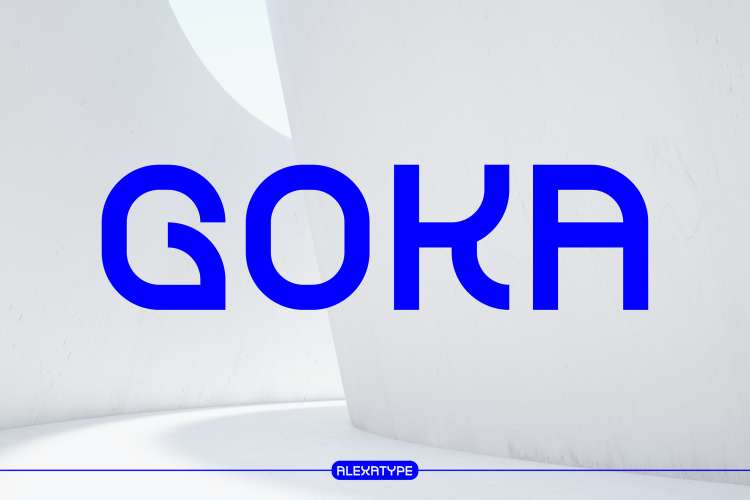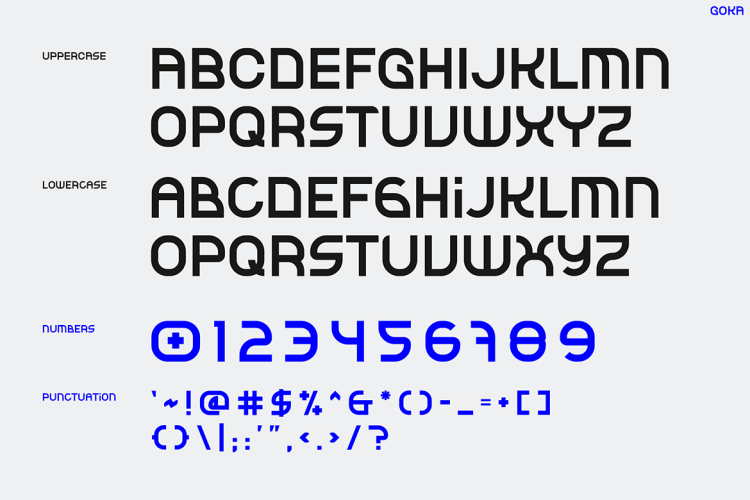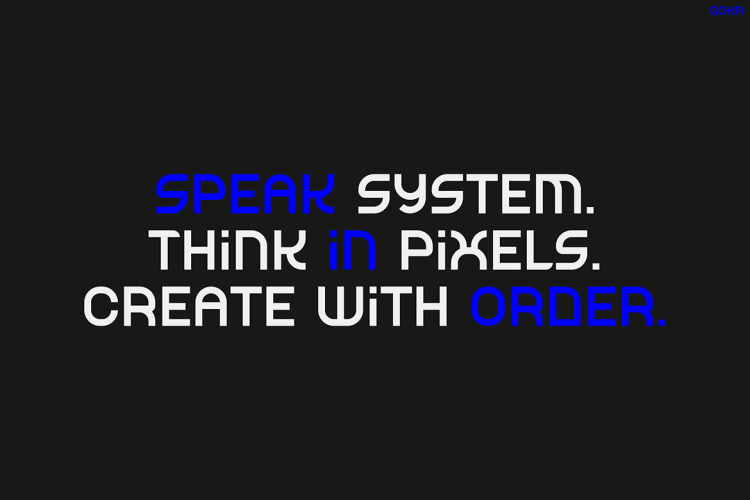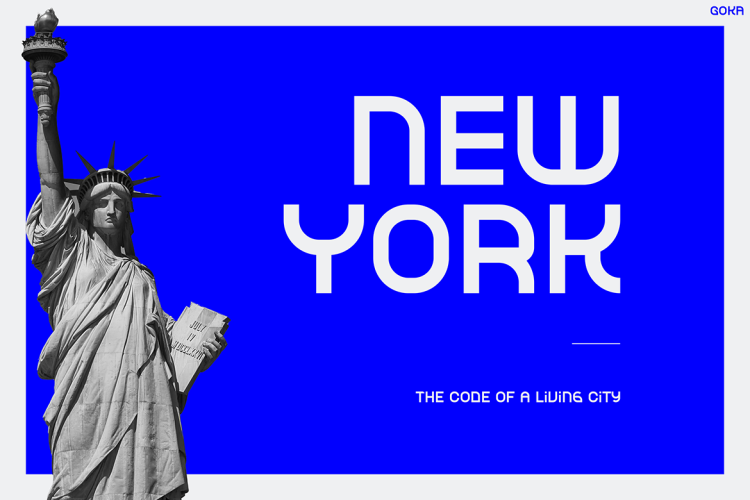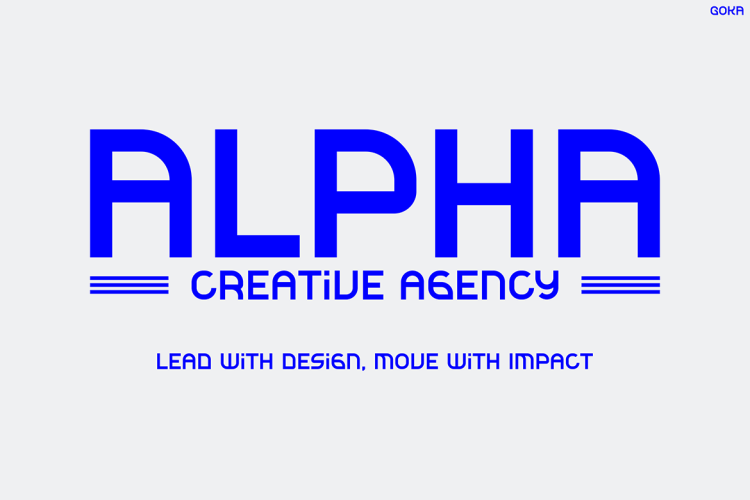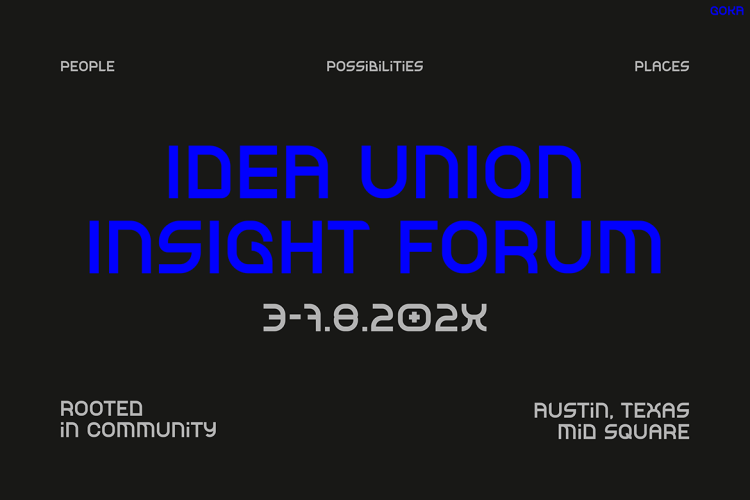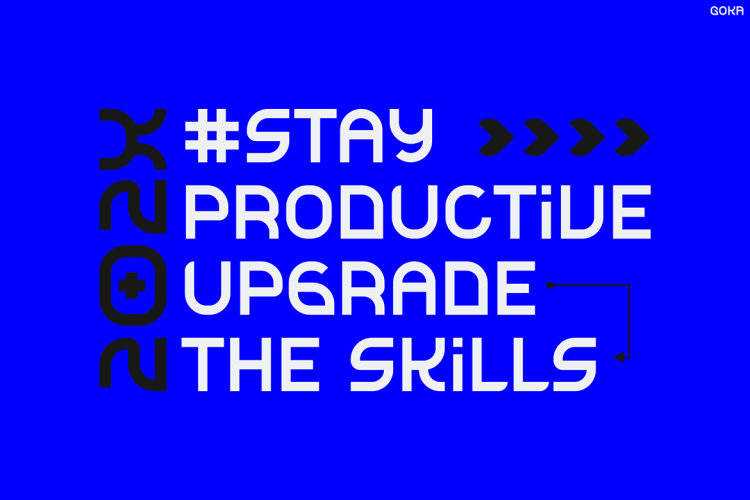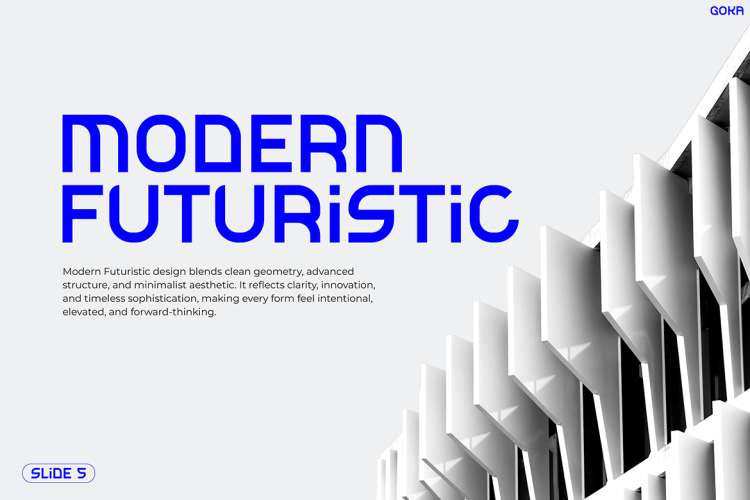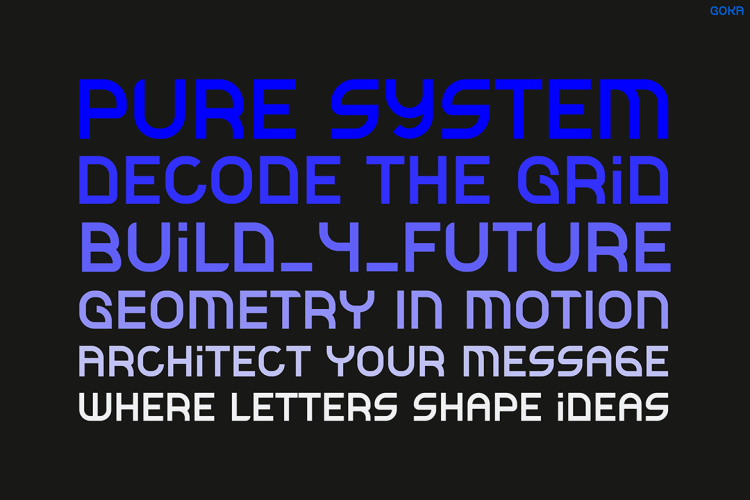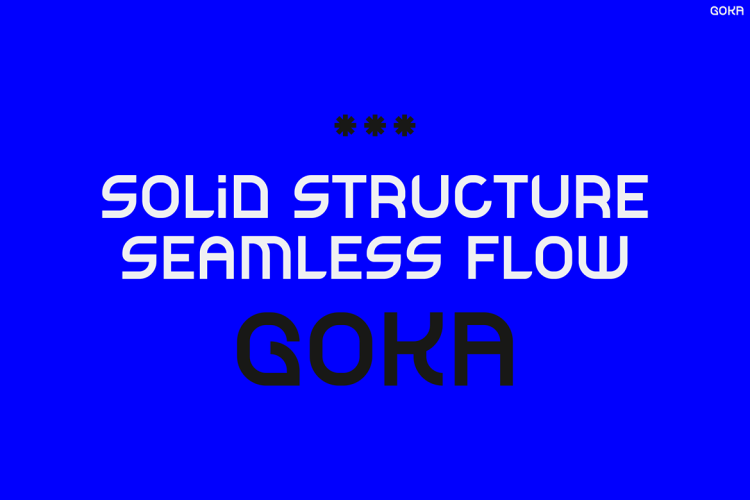
Futuristic Font GOKA: A Bold Vision of Typographic Innovation
Futuristic Font GOKA is a sleek and modern typeface built for the digital age. It features clean lines, rounded forms, and strong visual rhythm. As a result, it works perfectly for projects that demand clarity and futuristic appeal. Its unique letterforms create a sense of movement and innovation. Therefore, the font looks structured, yet expressiveโideal for tech-savvy and design-conscious users.
GOKA blends minimalism with bold aesthetics. At the same time, it remains versatile across mediums, from digital to print. Whether used in titles, branding, or product packaging, it stands out while staying professional. Moreover, with its geometric roots and precise spacing, GOKA enhances readability without losing its futuristic flair. In other words, itโs not just a fontโitโs a visual statement for forward-thinking design.
Who Is It For?
Futuristic Font GOKA is designed for anyone who values sharp, modern design. For instance, creative agencies can use it to build strong brand identities. Likewise, tech startups will appreciate its clean and futuristic feel. Event organizers and digital platforms can rely on it for stylish promotions and headlines. Meanwhile, designers working in UX/UI, architecture, or visual branding will find GOKA ideal for structured yet innovative layouts.
In addition, content creators, educators, and modern marketers can also benefit from its clarity and style. GOKA helps communicate messages that feel current and visionary. Consequently, itโs also a smart choice for product designers and lifestyle brands aiming for a sleek, tech-inspired tone.
Design for the Future Starts Here
Futuristic Font GOKA is more than a fontโitโs your toolkit for modern storytelling. With this in mind, its balance of style and structure fits perfectly in todayโs design landscape. If youโre ready to bring your creative work into the future, GOKA is the perfect place to start. All in all, make your projects stand out with bold, clean typography that inspires.